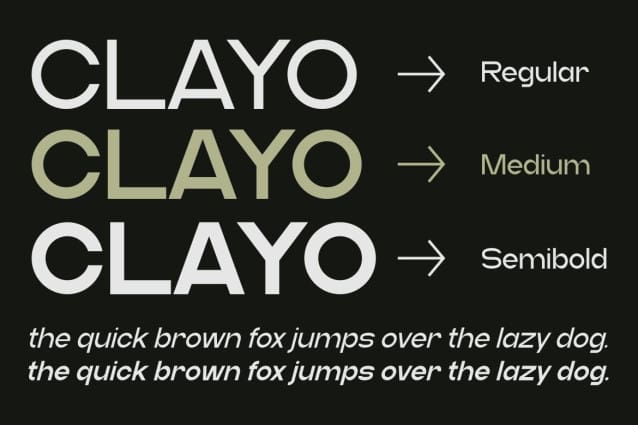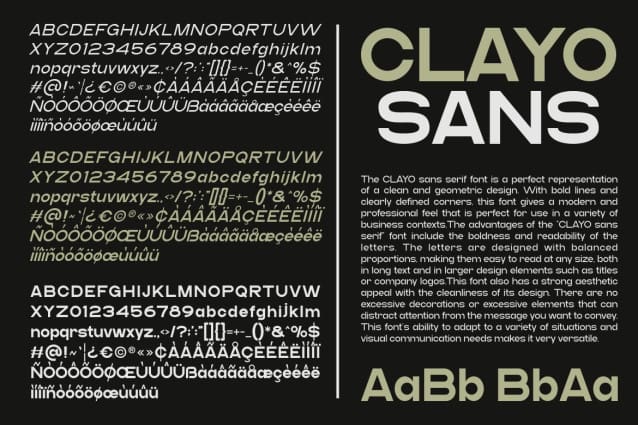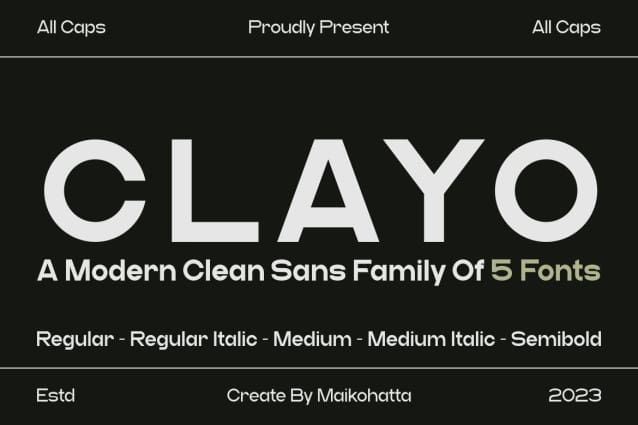
Clayo Font
Clayo Font – Modern Clean Sans Family Font. A Sans-Serif font family available in different styles is a very versatile choice for graphic design and displaying clean, modern text. This Sans-Serif font family offers flexibility in graphic design, and its different styles allow you to customize the appearance of the text according to the needs of your project. With different combinations of regular, italic characters and different boldness levels, you can create an attractive and easily readable text display in different contexts